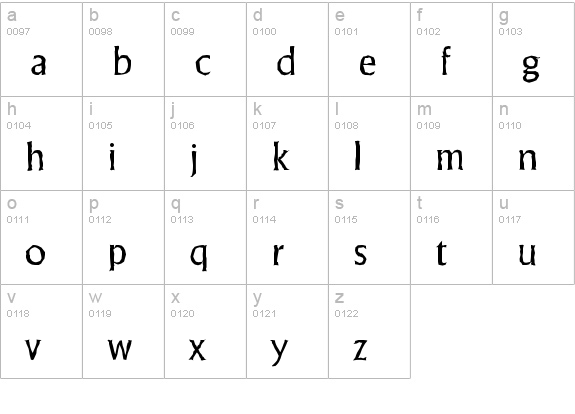
AdelonAntique-Regular Font Details
AdelonAntique-Regular is the standard, neutral variant in the AdelonAntique typeface family \xE2\x80\x94 well suited to general body text, paragraphs, and standard typographic work.
AdelonAntique-Regular is a timeless and elegant font that exudes a sense of sophistication and class. With its classic serifs and refined letterforms, this typeface is perfect for adding a touch of vintage charm to any project. Whether you're designing invitations, branding materials, or editorial layouts, AdelonAntique-Regular will elevate your work to the next level. What's even better is that AdelonAntique-Regular is available for free download at FontsMarket.com. This means you can easily access and use this beautiful font in your designs without any cost. Don't miss out on the opportunity to enhance your projects with the timeless appeal of AdelonAntique-Regular. Download it today and add a touch of elegance to your creations.